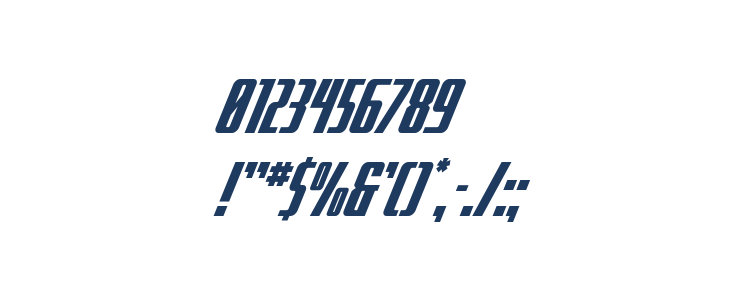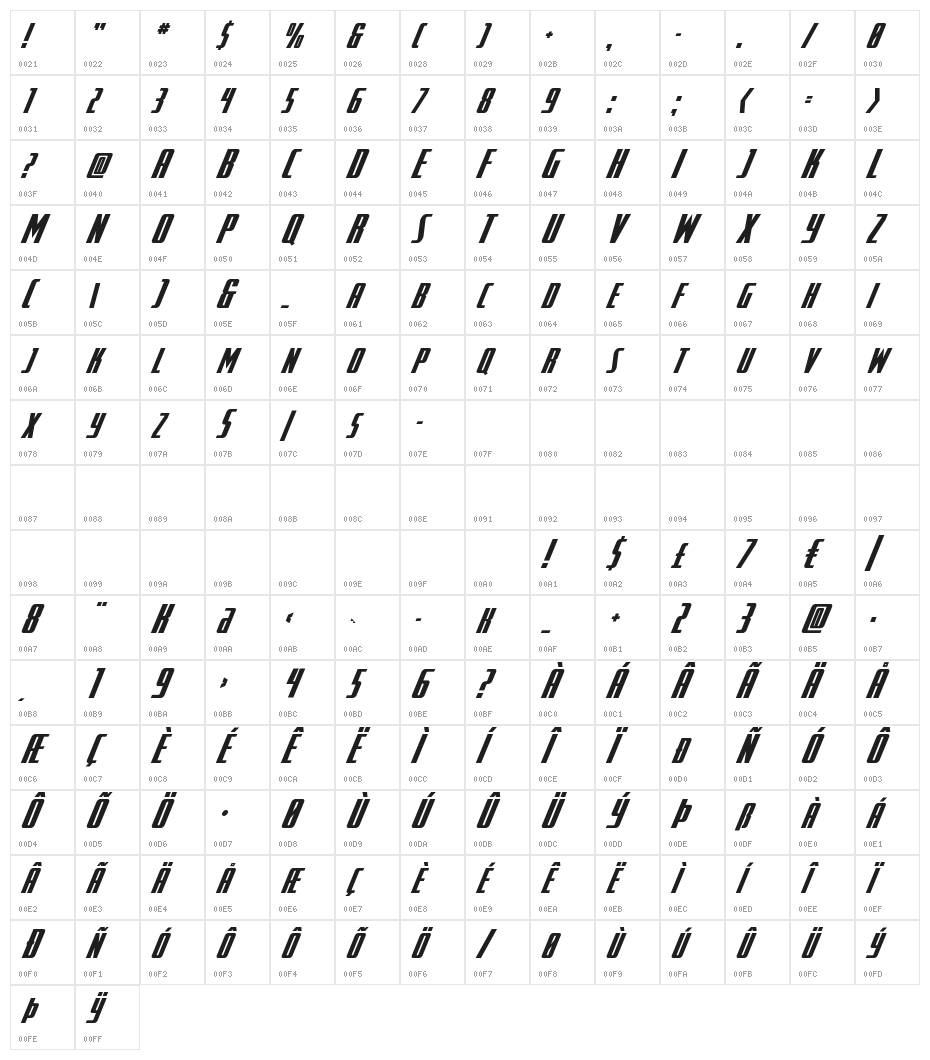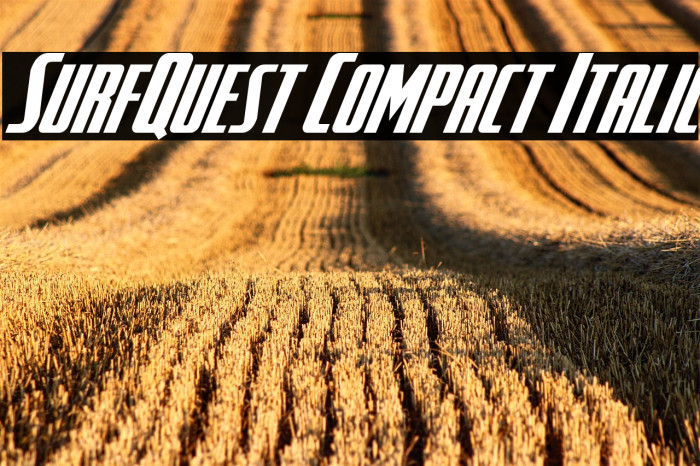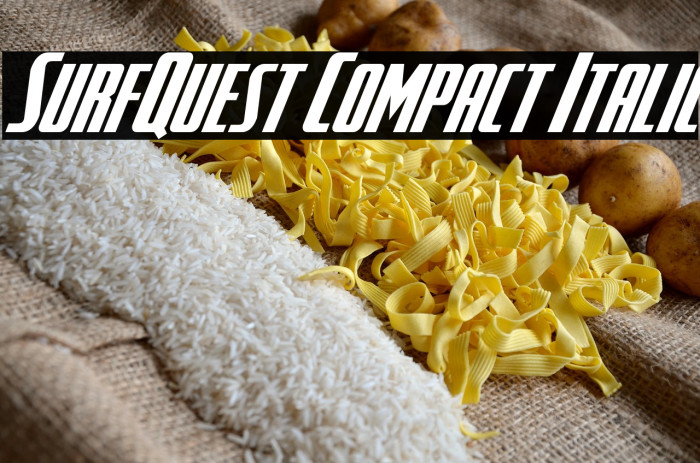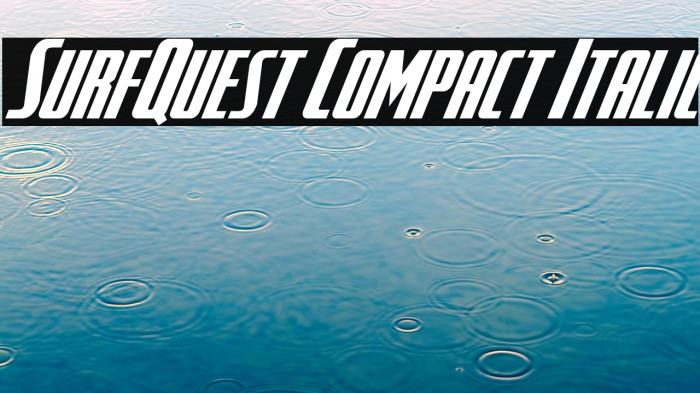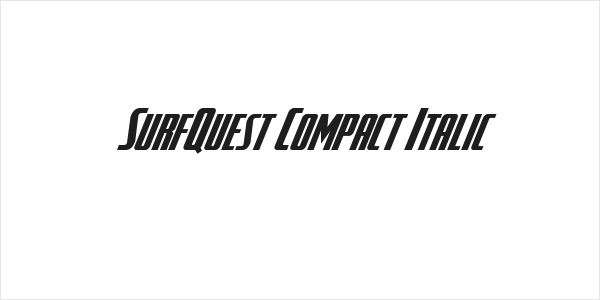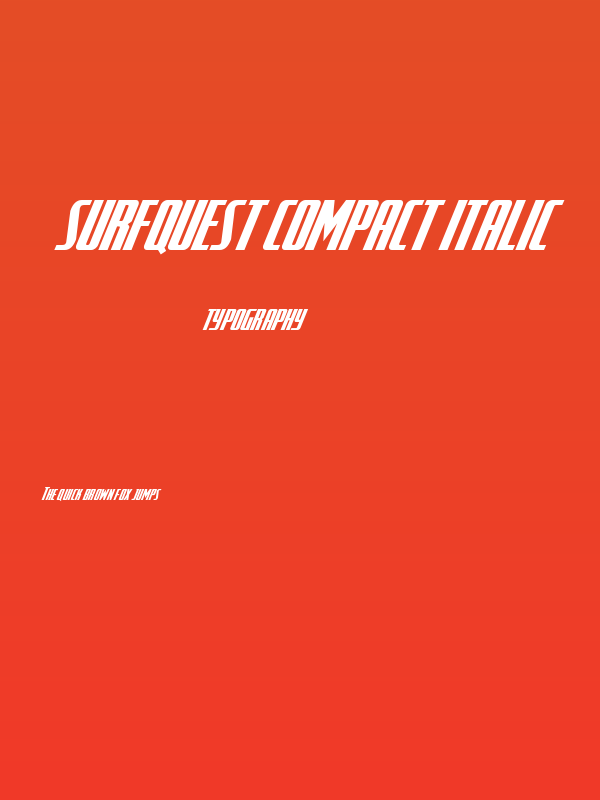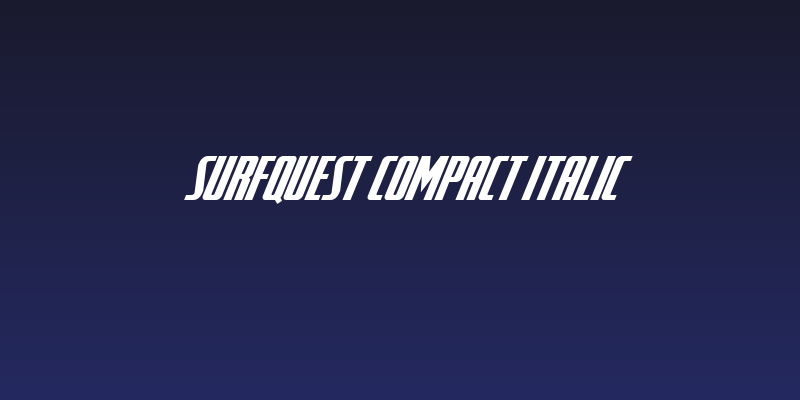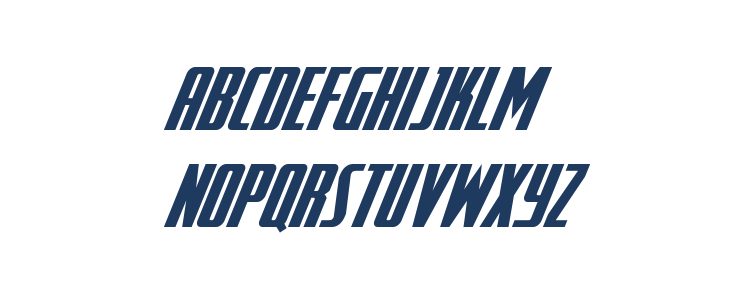
SurfQuest Compact Italic Font
SurfQuest Compact Italic Description
This font features a bold and dynamic italic style with a strong presence. The characters are compact and slightly condensed, giving it a powerful and energetic look. The strokes are thick and consistent, providing a high contrast that enhances readability while maintaining a stylish appearance. The slanted design adds a sense of movement and speed, making it ideal for projects that require a modern and impactful aesthetic. The uppercase and lowercase letters are well-balanced, and the numerals and special characters are designed to complement the overall style.
| Proposed Projects | Ideal for sports branding, dynamic posters, modern advertisements, and eye-catching headlines. |